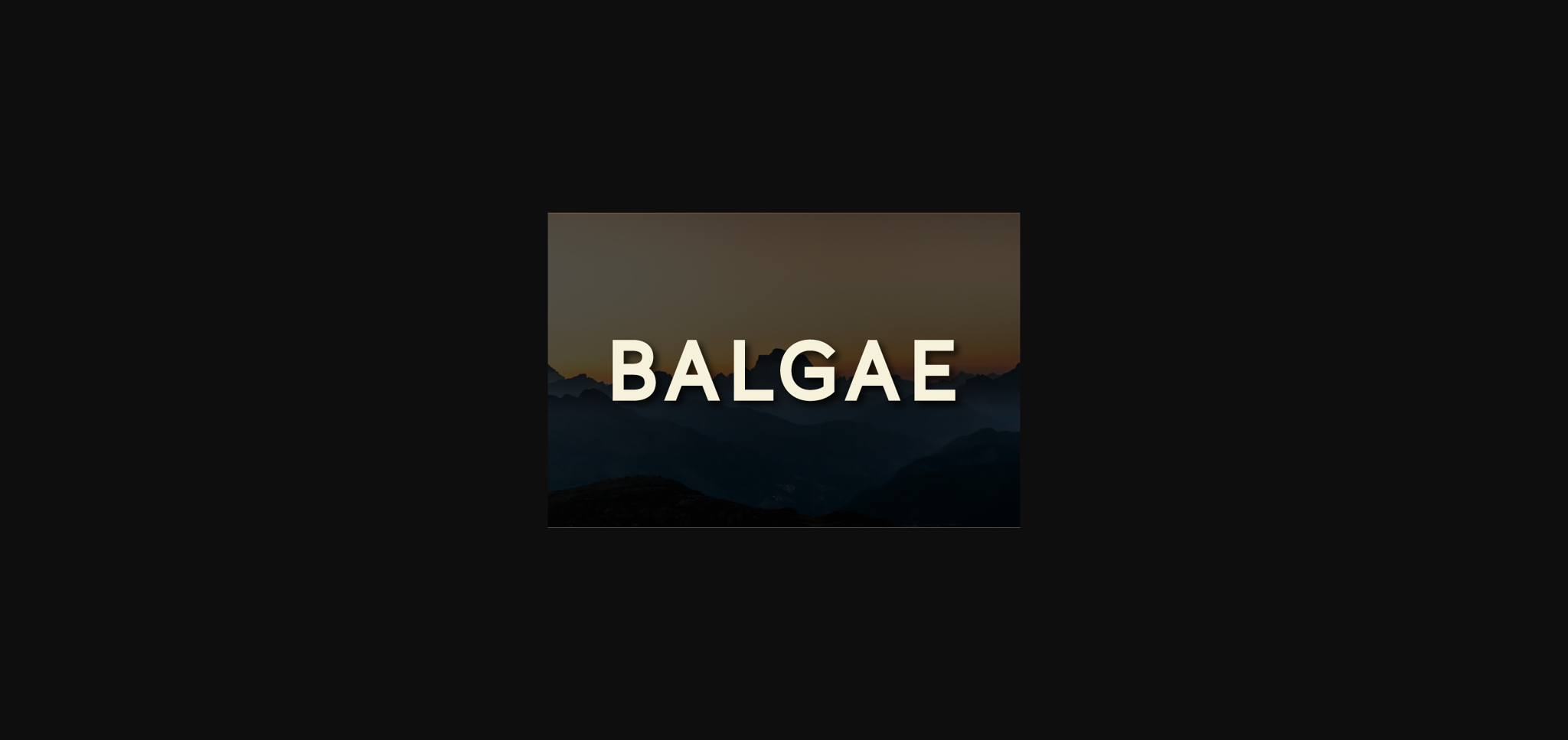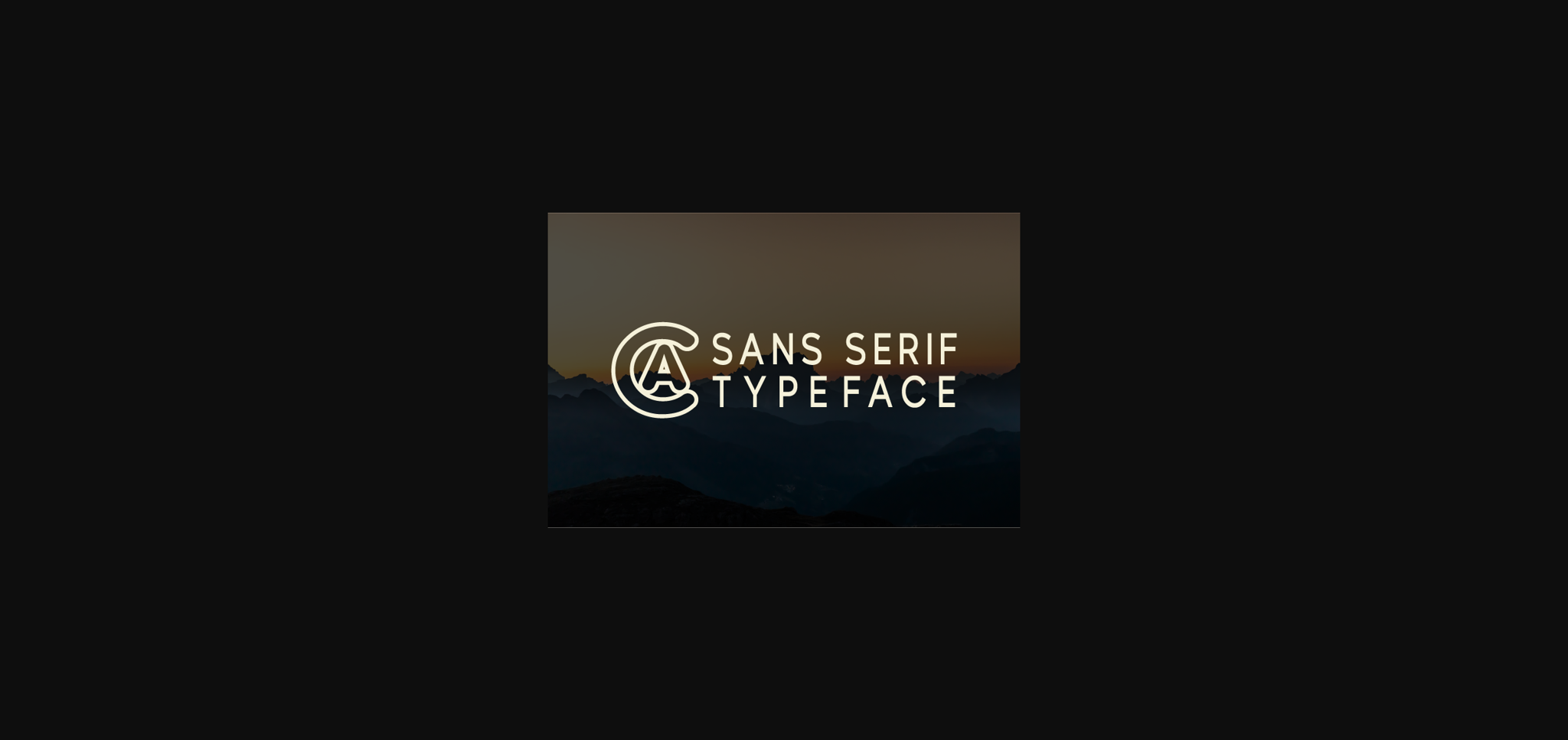
Balgae is a simple and trendy sans serif font. It can easily be matched to an incredibly large set of projects, so add it to your creative ideas and notice how it makes them stand out!